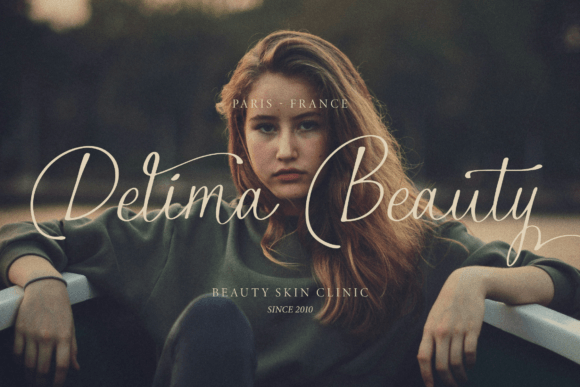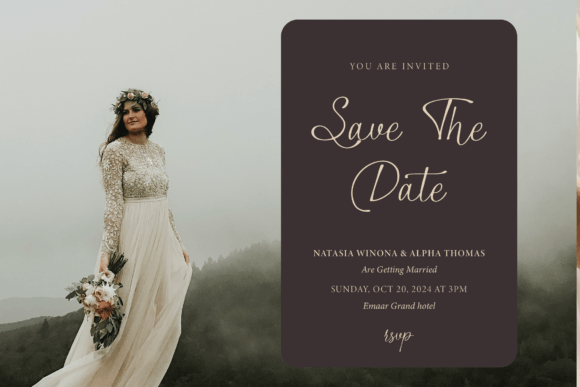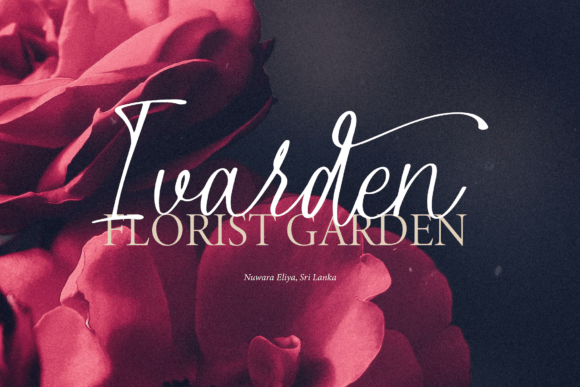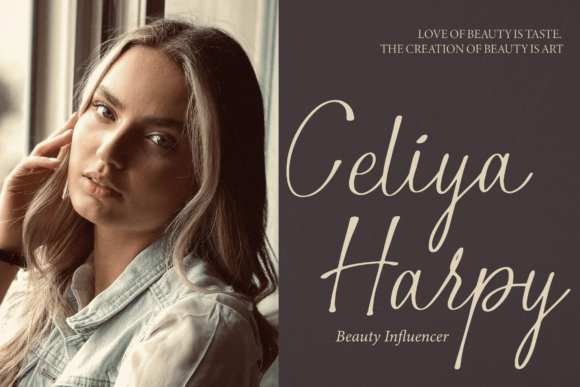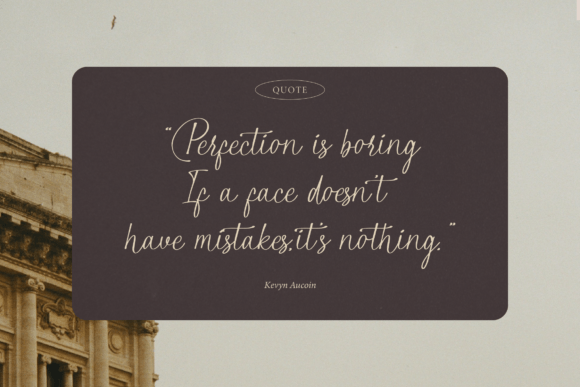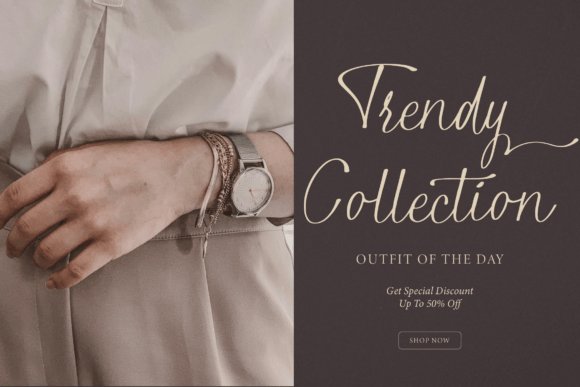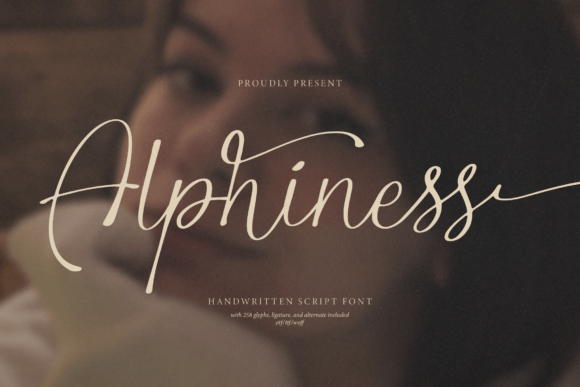
Introducing Alphiness Font: Elevate Your Designs with Elegant Handwritten Style
In the world of typography, handwritten script fonts hold a special place for their ability to add a personal and warm touch to any design. Among these, the Alphiness font stands out for its smooth, flowing letters that mimic natural handwriting. This beautiful handwritten script font is perfect for designers and crafters looking to infuse their projects with a sense of elegance and friendliness. Whether you’re working on personal invitations, greeting cards, logos, or any other creative project, Alphiness is sure to make your designs stand out.
The Charm of Alphiness Font
Alphiness boasts a unique charm that sets it apart from other script fonts. Its letters are designed to flow smoothly into one another, creating a natural and effortless look that is reminiscent of handwriting. This fluidity gives any text a dynamic and lively feel, making it perfect for projects where you want to convey warmth and personality.
One of the key advantages of the Alphiness font is its versatility. It can be used in a variety of design projects, from personal to professional. Here are a few ways you can utilize Alphiness:
- Invitations and Cards: Add a personal touch to your wedding invitations, birthday cards, or any other special occasion with Alphiness. Its elegant and friendly style ensures that your guests feel valued and cherished.
- Logos and Branding: For businesses looking to establish a personal brand identity, Alphiness can be a great choice. It can help convey a sense of approachability and warmth, which is perfect for brands aiming to connect with their audience on a more personal level.
- Stationery and Journals: Enhance your stationery sets or journal designs with the beautiful script of Alphiness. It’s sure to make your products stand out and appeal to customers looking for that personal touch.
Why Choose Alphiness?
There are several reasons why Alphiness font should be your go-to choice for your next design project:
- Elegant yet Approachable: Alphiness strikes the perfect balance between elegance and approachability. Its smooth, flowing script is sophisticated enough for formal projects yet friendly enough to connect with your audience.
- Easy to Read: Despite its script nature, Alphiness is remarkably legible, making it suitable for both short phrases and longer texts.
- Customizable: Alphiness can be easily customized to fit your project’s needs. Whether you’re adjusting the size, color, or integrating it with other fonts, Alphiness adapts well to different design requirements.
Tips for Using Alphiness Effectively
To get the most out of Alphiness font, consider the following tips:
- Pair with Complementary Fonts: For maximum effect, pair Alphiness with clean, sans-serif fonts for contrast. This combination can help highlight key information while keeping your text easy to read.
- Experiment with Colors: Don’t be afraid to play with different colors. Alphiness looks great in bold, vibrant colors but can also convey subtlety and elegance in pastel shades or monochromatic schemes.
- Use it Sparingly: While Alphiness is beautiful, it’s best used sparingly to emphasize certain parts of your design. Use it for headings, quotes, or key messages to draw attention.
Alphiness font offers a unique blend of elegance and friendliness, making it an excellent choice for designers and crafters looking to add a personal touch to their projects. Its smooth, flowing script and versatile nature ensure that it can be used in a wide range of applications, from personal invitations and cards to logos and professional branding. With Alphiness, you can elevate your designs and connect with your audience on a more personal level. So, why settle for ordinary when you can make your designs extraordinary with Alphiness?